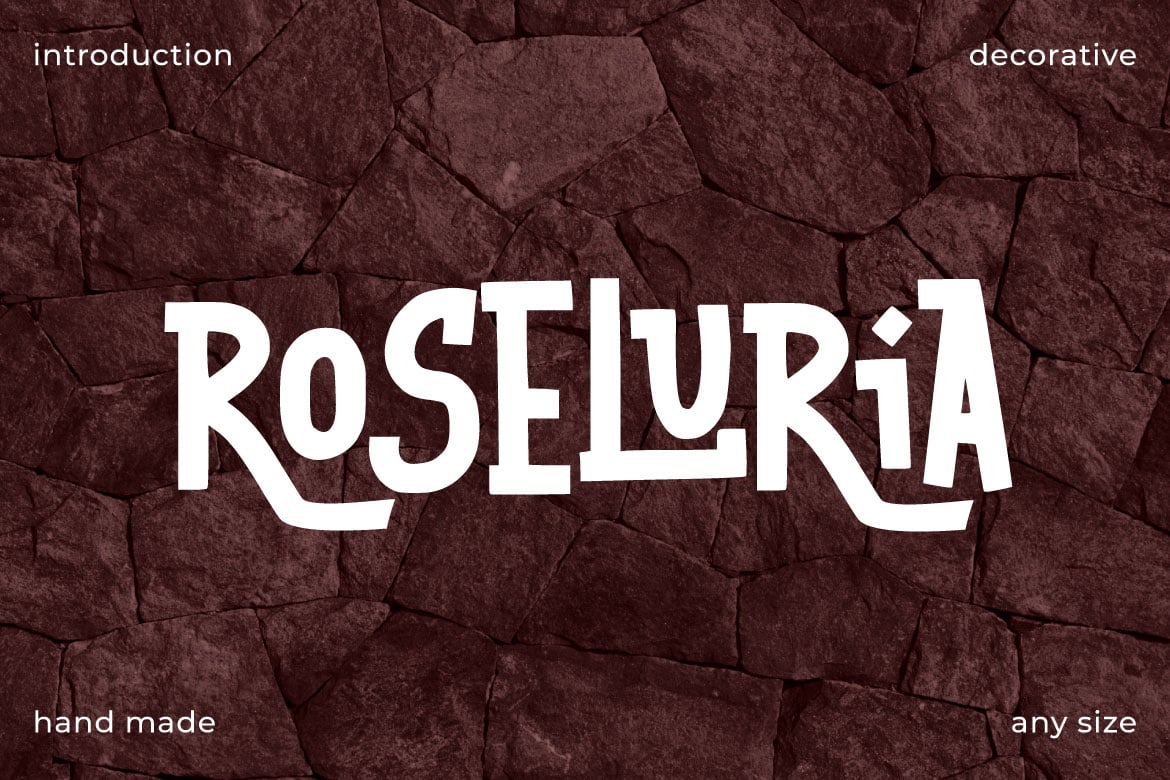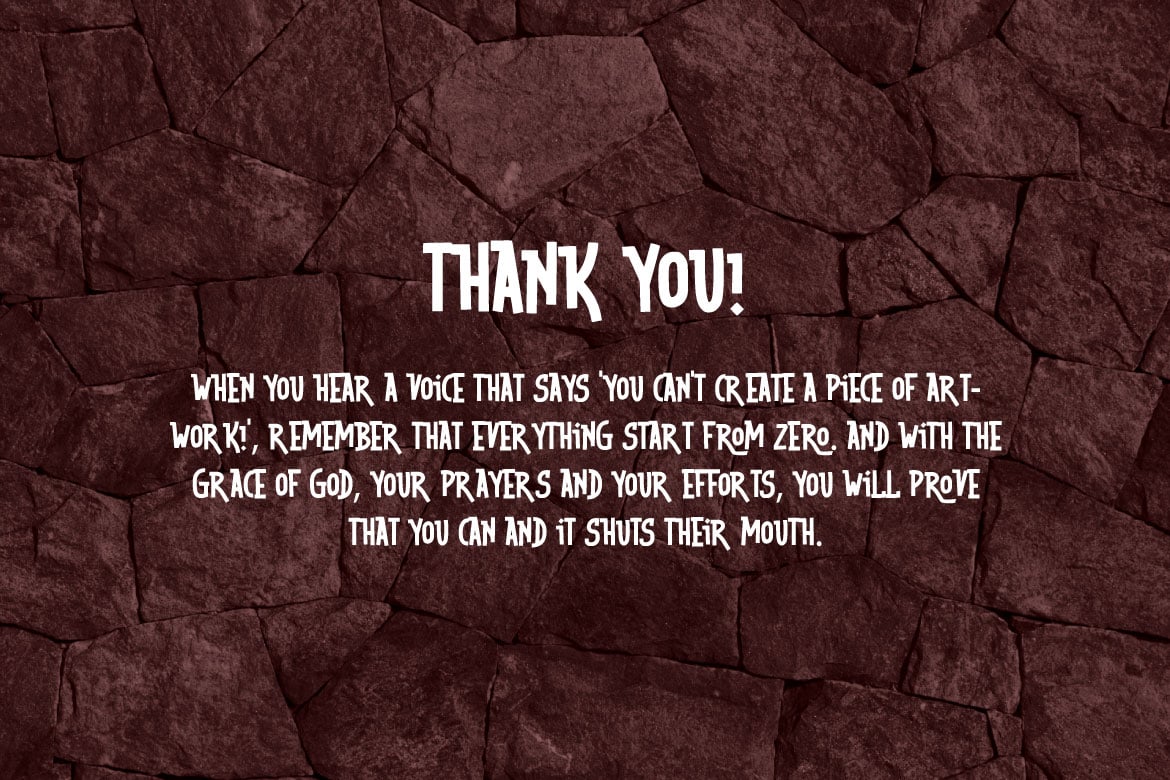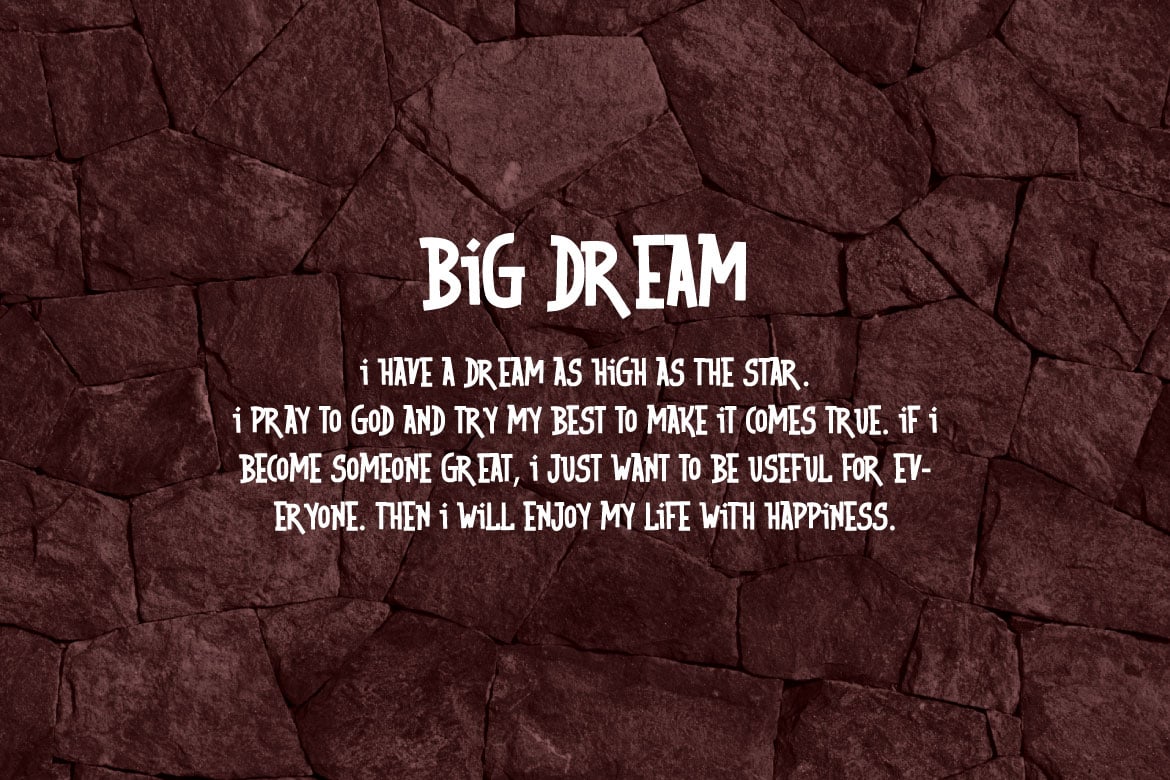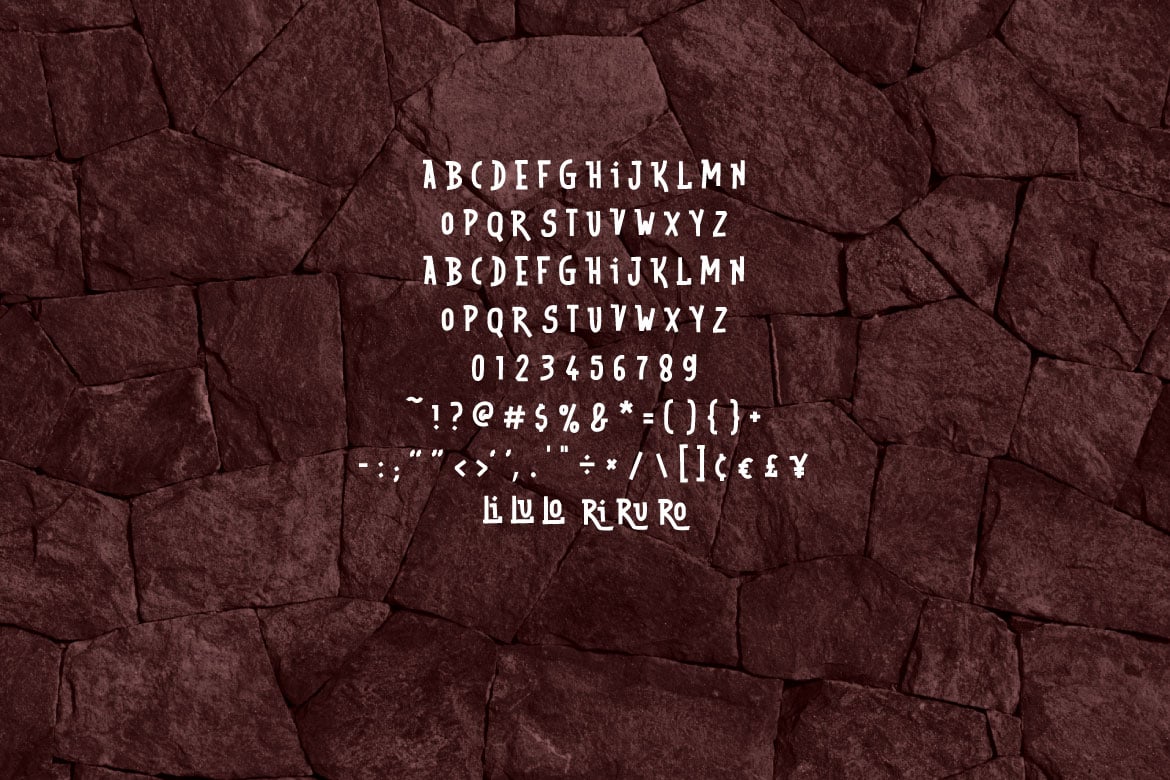
Roseluria – Decorative Font
Introducing Roseluria, a meticulously crafted decorative font that brings a touch of sophistication and charm to your creative projects. This font is perfect for designers and creatives looking to add a unique, stylish flair to their work such as for logos, greeting cards, posters, book covers, and any design project that requires a decorative touch.
Roseluria stands out with its unique blend of classic beauty and modern sophistication. Whether you are designing for print or digital media, this font will elevate your projects, making them memorable and visually appealing.